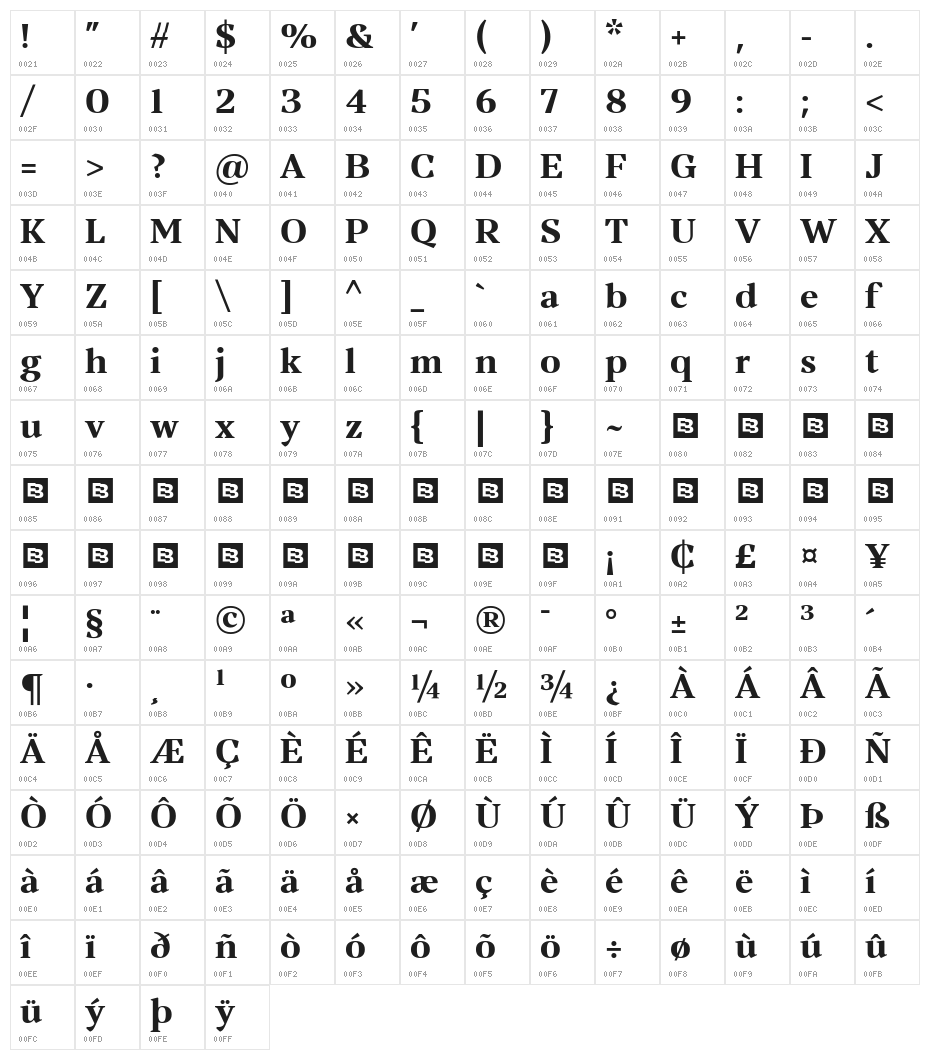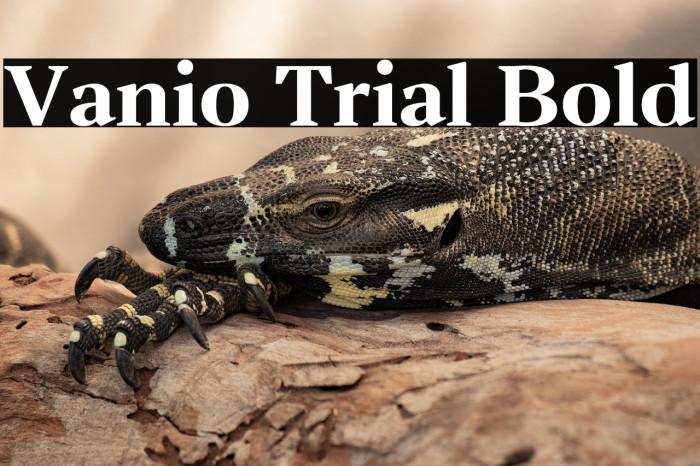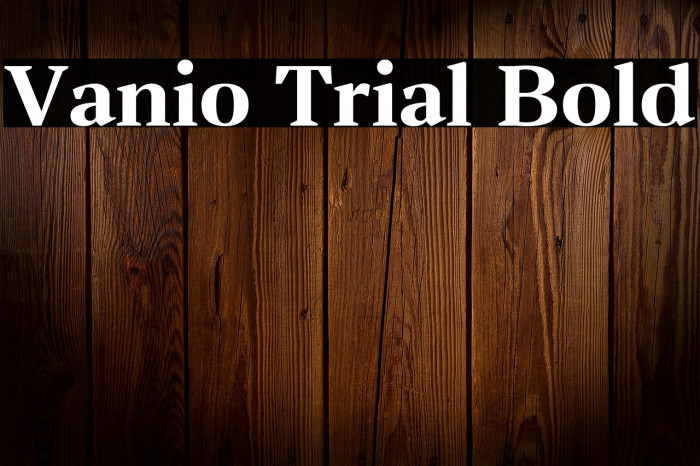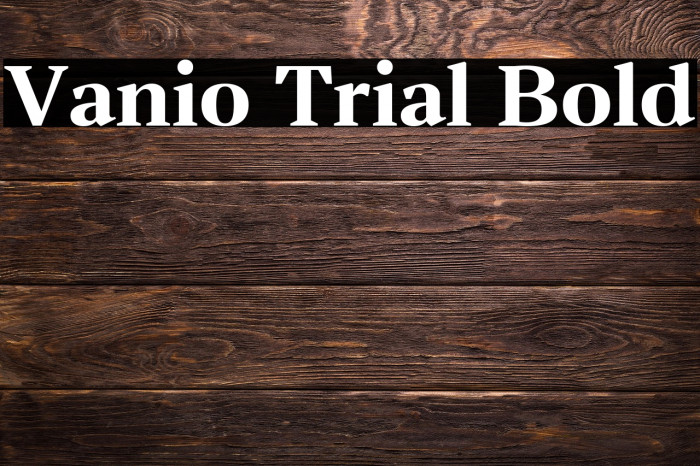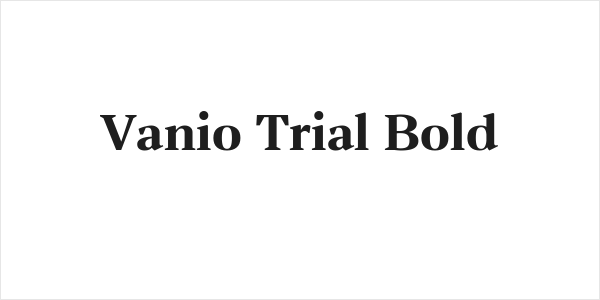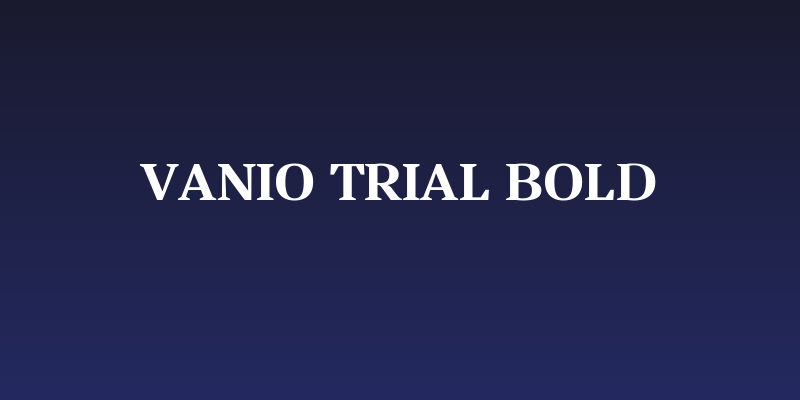
Vanio Trial Bold Font
Vanio Trial Bold Description
This font presents a bold and authoritative presence with its strong, thick strokes and classic serif design. The uppercase letters are robust and commanding, while the lowercase letters maintain a consistent weight, offering a harmonious balance. The numerals are clear and prominent, ensuring readability. Special characters are well-defined, adding versatility to the font's usage. The overall design is traditional yet impactful, making it suitable for a variety of formal and professional applications.
| Use Case | Headlines, Logos, Formal Documents |
| Proposed Projects | Ideal for use in headlines, book covers, formal invitations, and branding materials where a strong, authoritative presence is desired. |